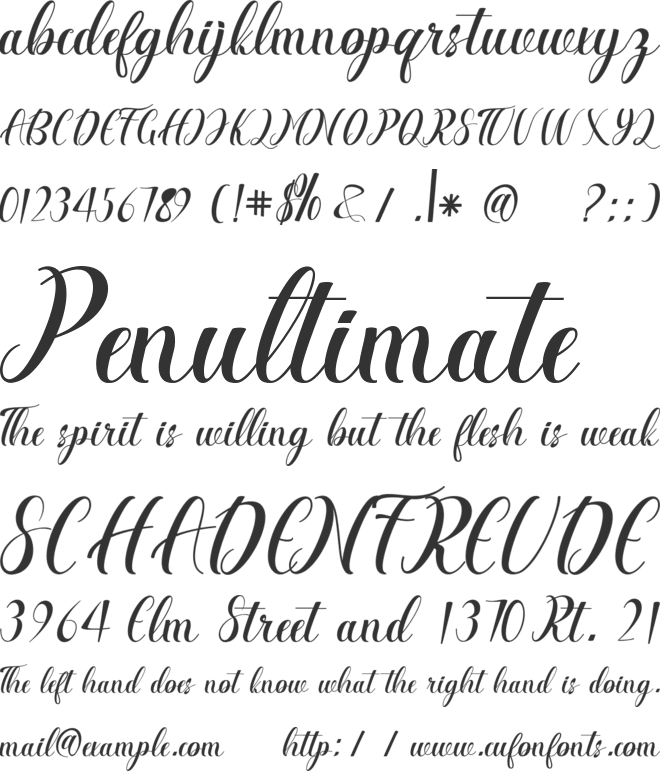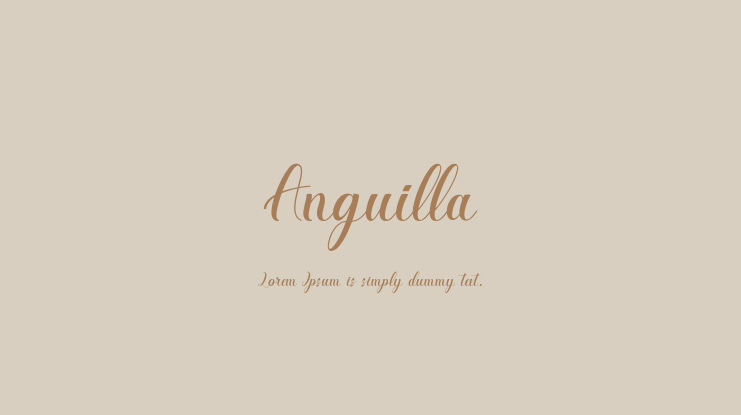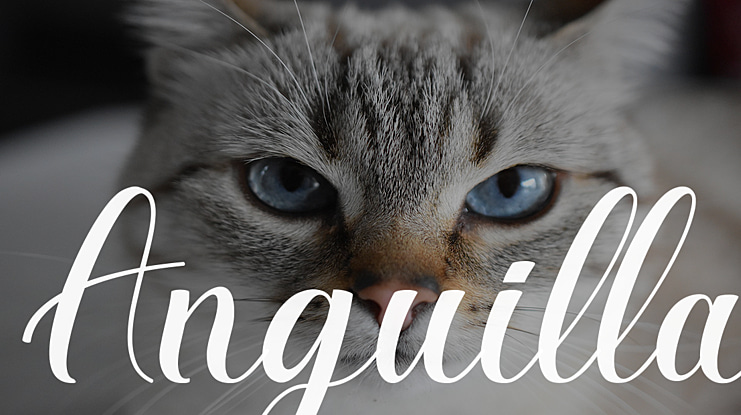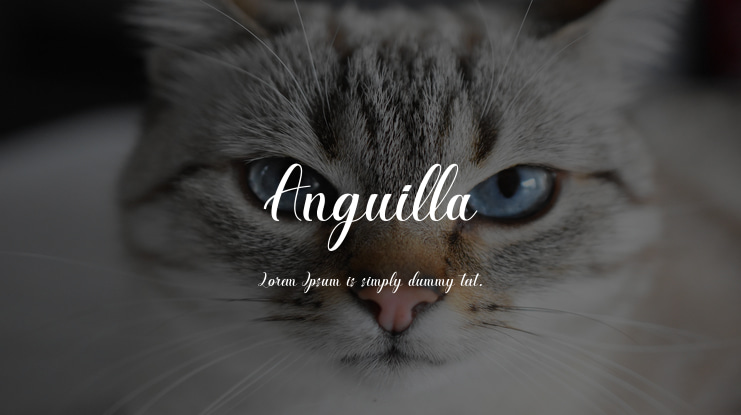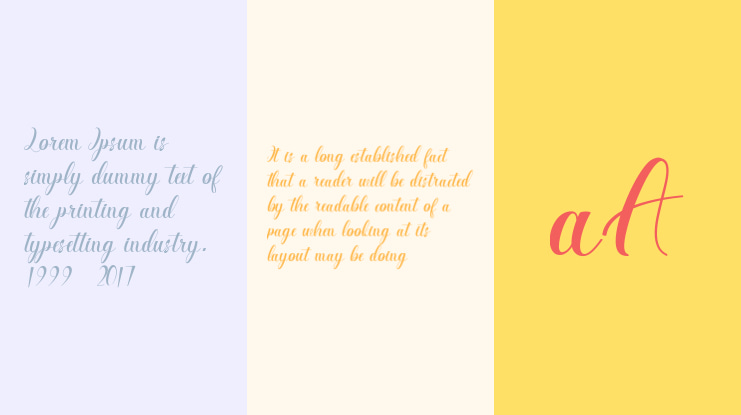
Anguilla Font
Anguilla is a hand-made font with a character fluctuating like a dancer. Mettha has a very unique calligraphy style, very suitable for use in modern design work.
The features of this font are:
* Standard ligature * Alternative Style < * PUA Unicode (Personal Use Area)
Can be used for various purposes. Such as post, logo, wedding invitation, t-shirt, letterhead, labels, news, posters, badges etc. To enable the OpenType Stylistic alternative, you need a program that supports OpenType features such as Adobe Illustrator CS, Adobe Indesign & CorelDraw X6-X7.a hand-made font with unique calligraphic style, perfect for use in modern design works. thank you